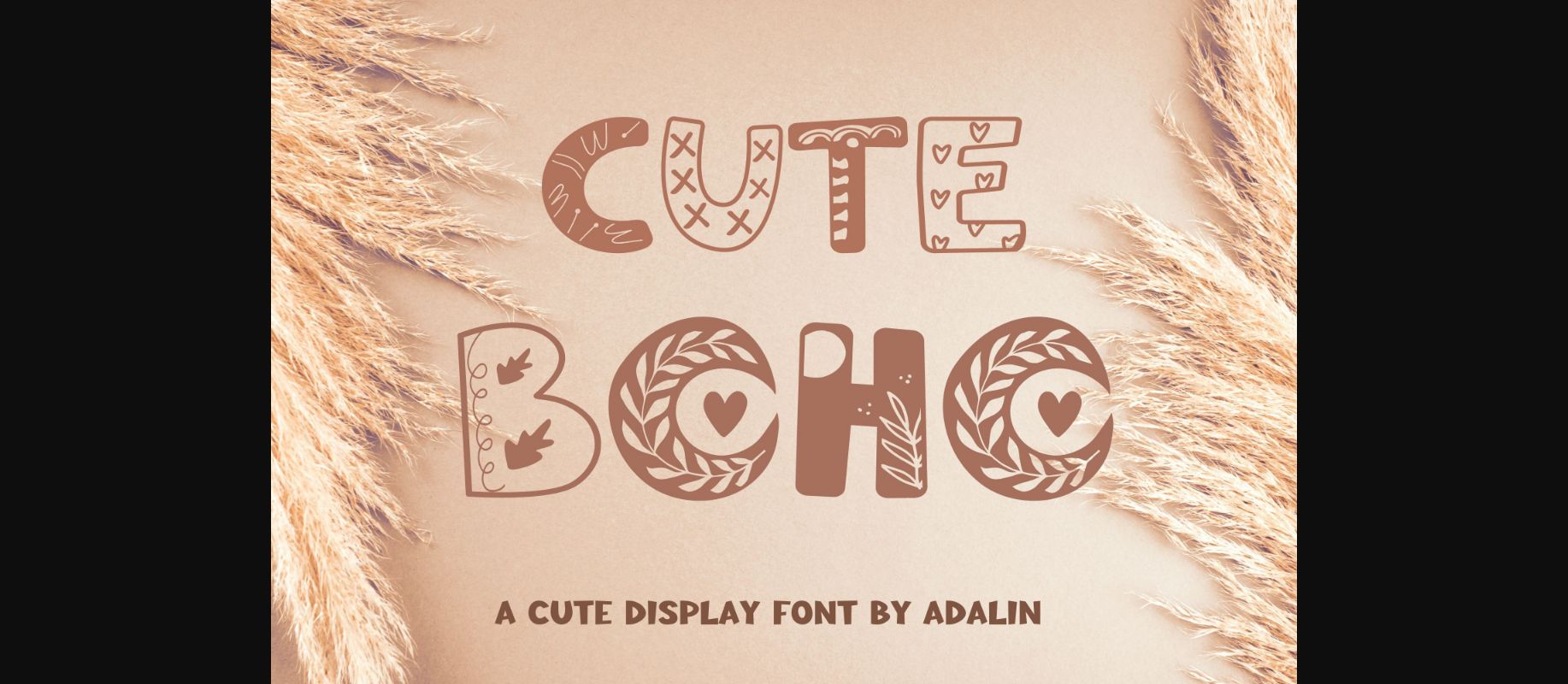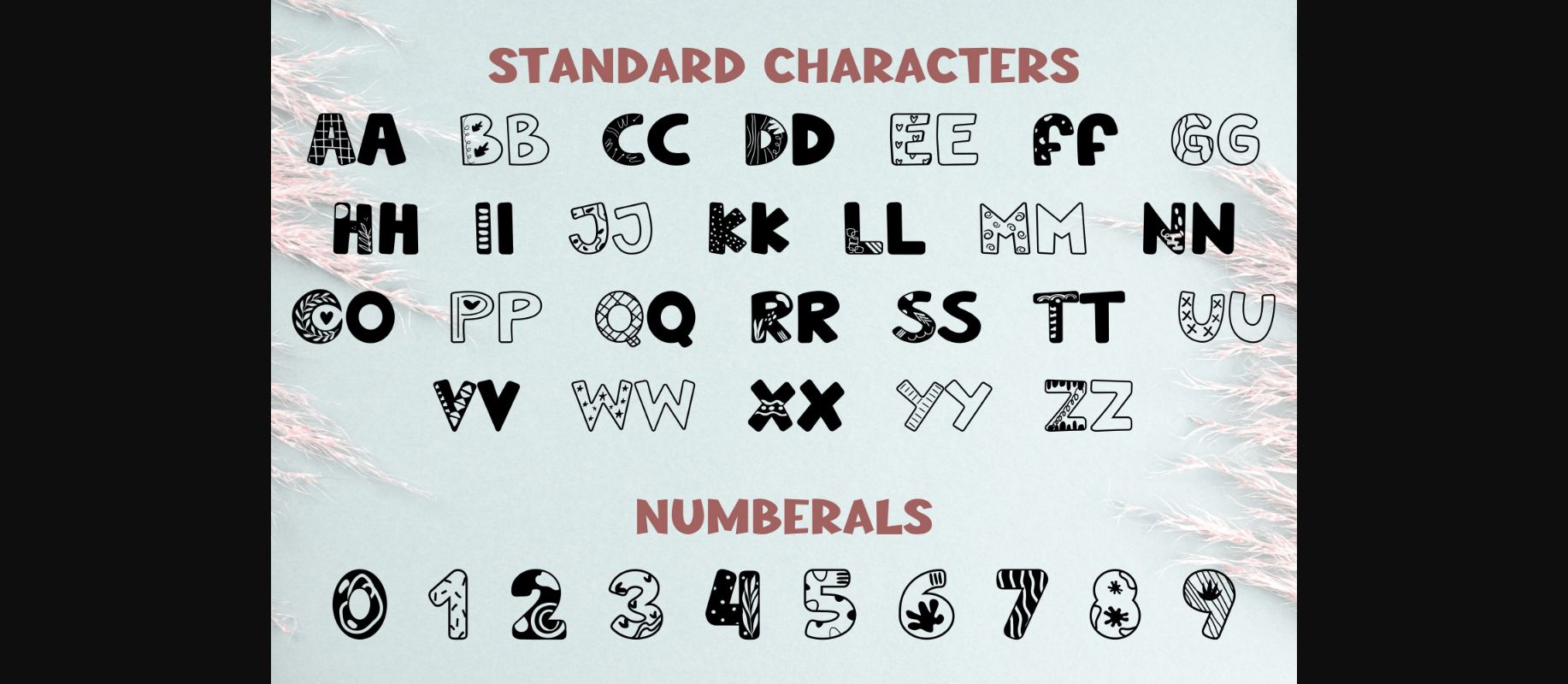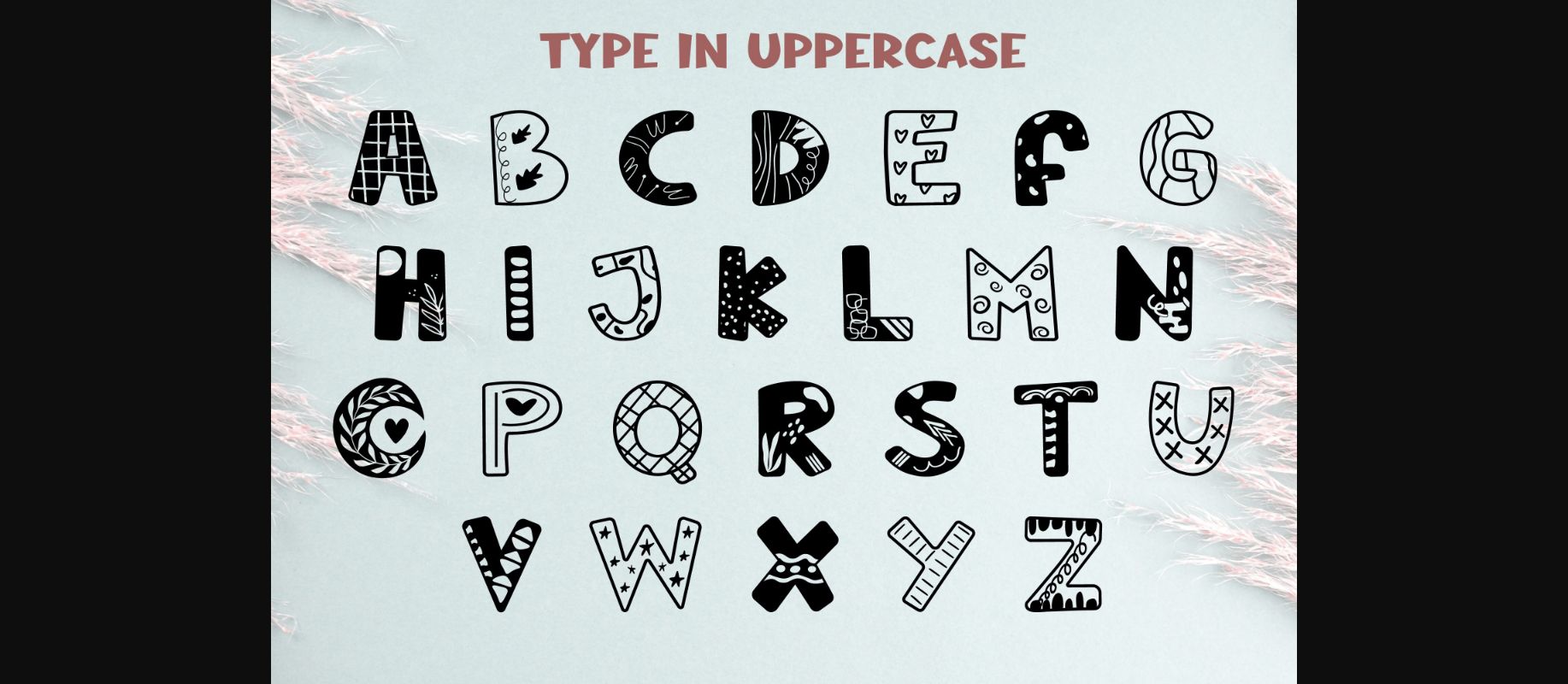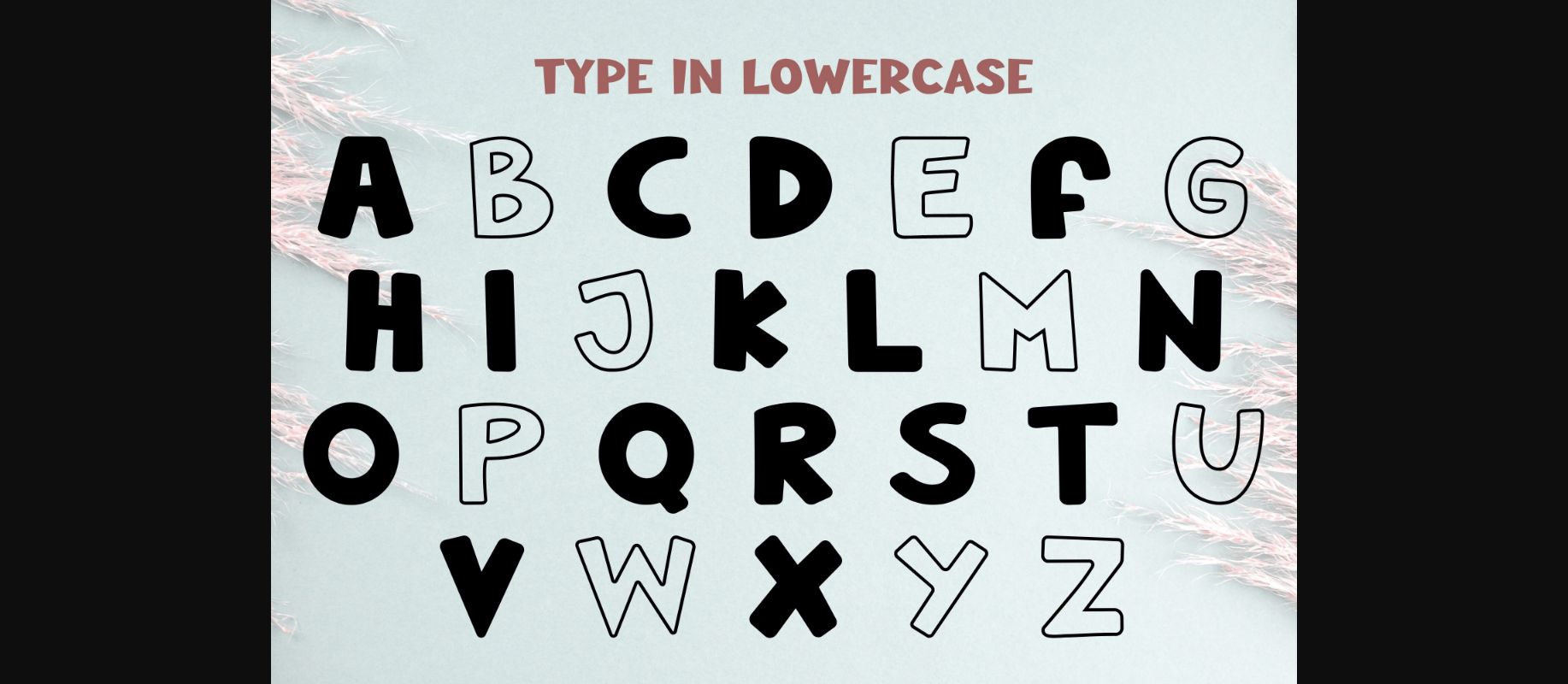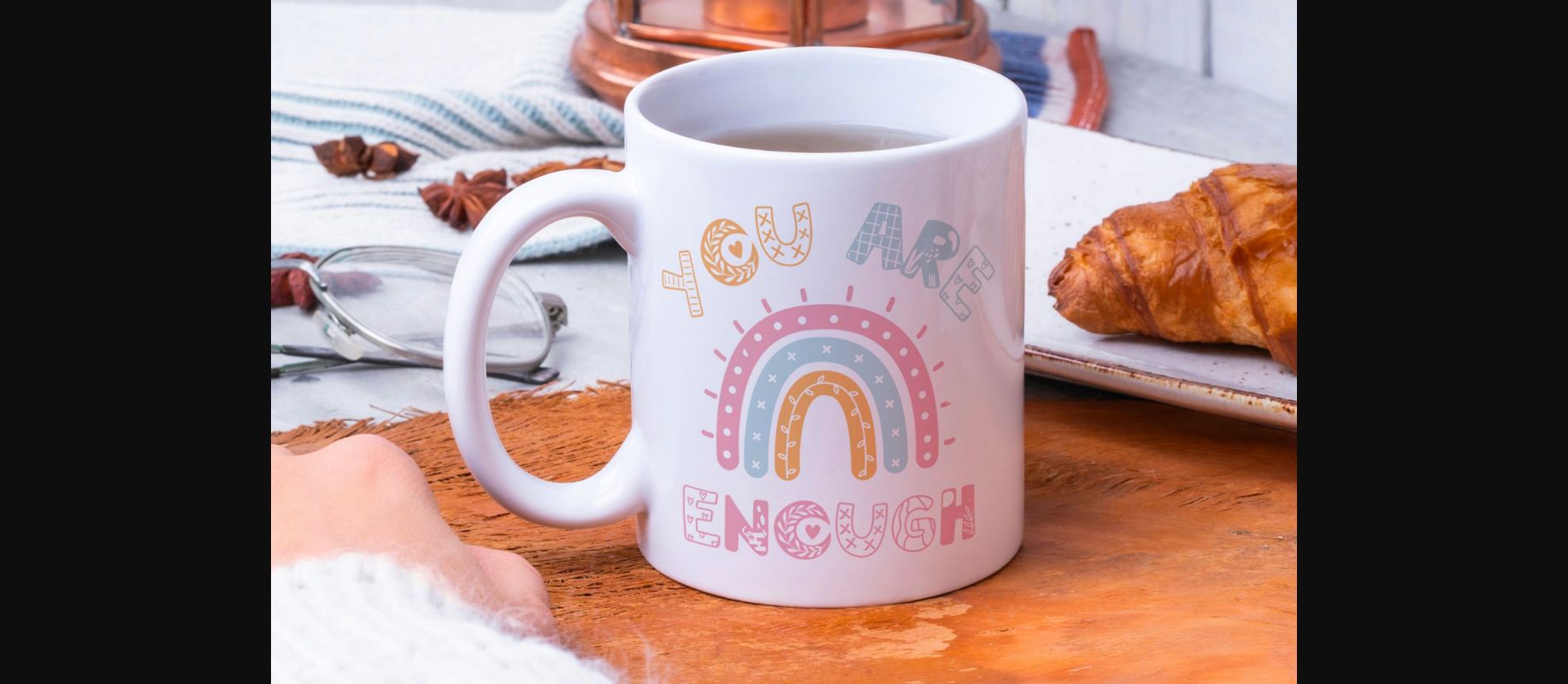
Cute Boho Font
About Cute Boho Font
Cute Boho is a whimsical and charming decorative font exuding a stylish bohemian flair. With its chic and playful design, it adds a touch of elegance to any project. Perfect for invitations, posters, and branding materials, Cute Boho captures the free-spirited essence of bohemian style with its unique charm.